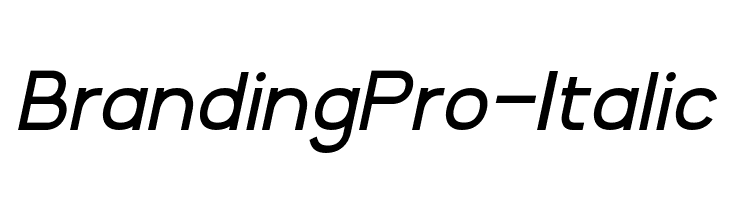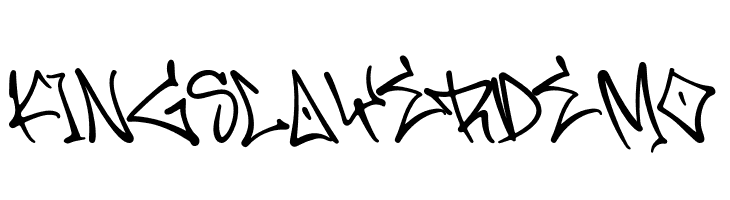
Geometric sans-serif with rounded terminals and uniform strokes.
A bold, high-contrast serif font with sharp serifs and a classic, elegant style.
A geometric, digital-inspired font with a blocky, modular design.
An elegant, cursive font with flowing lines and intricate flourishes.
A playful, mountain-inspired font with bold, snow-capped characters.
A modern, italic, and slightly condensed font with a clean design.
A bold, brush-style font with dynamic, hand-painted strokes.
A bold, condensed, and italicized font with high contrast and sharp angles.
A bold, stencil-style font with geometric cutouts and a modern, industrial look.
A playful and whimsical script font with flowing, connected letterforms.
设计师偏爱 OSeong and HanEum Regular, Brass Hopper Head PERSONAL Regular, HUECO-Regular, Mylola and SNOWY MOUNTAINS,因为其造型干净、适用范围广—— 从品牌识别到落地页、海报都能胜任。